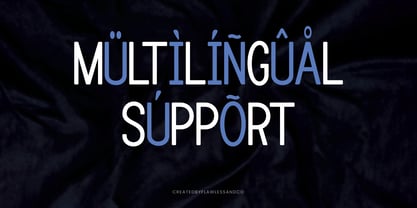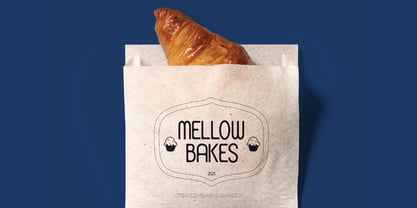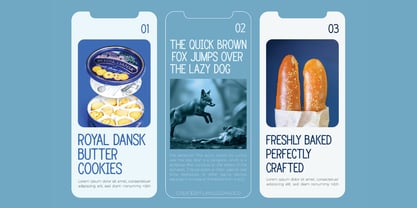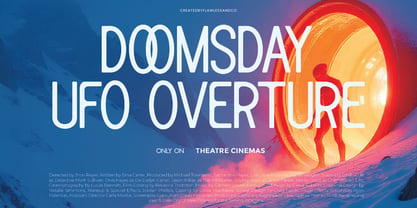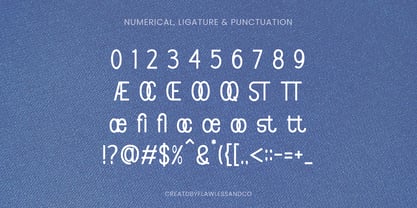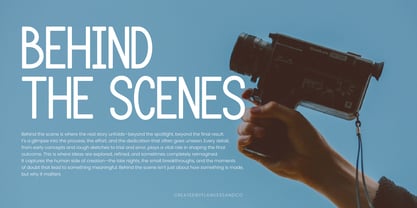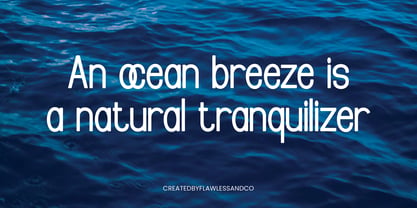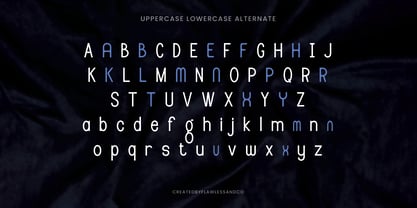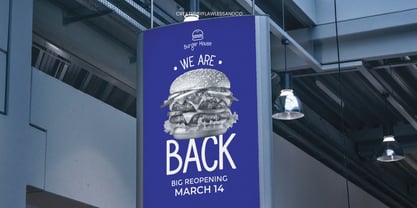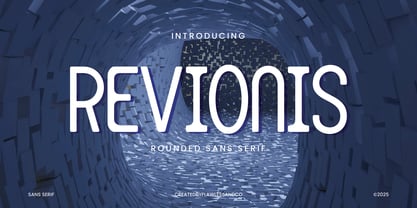
Revionis
Revionis is a clean and modern sans serif font designed to bring simplicity and sophistication to your projects. With its sleek letterforms and balanced proportions, this font is perfect for branding, logos, website headers, editorial layouts, and social media graphics. Its minimalistic style makes it versatile and easy to pair with other typefaces, making it a great choice for both professional and creative designs. Features : Multilingual, Uppercase alphabet A-Z, Lowercase alphabet a-z, Numbers 0-9, Some punctuation, Alternates & Ligatures NOTE: For all the characters are also available, accessible in the Adobe Illustrator Glyphs Panel, or in Adobe Photoshop Character Open Type Panel. If you need help, just write me! Thanks so much for checking out my shop!